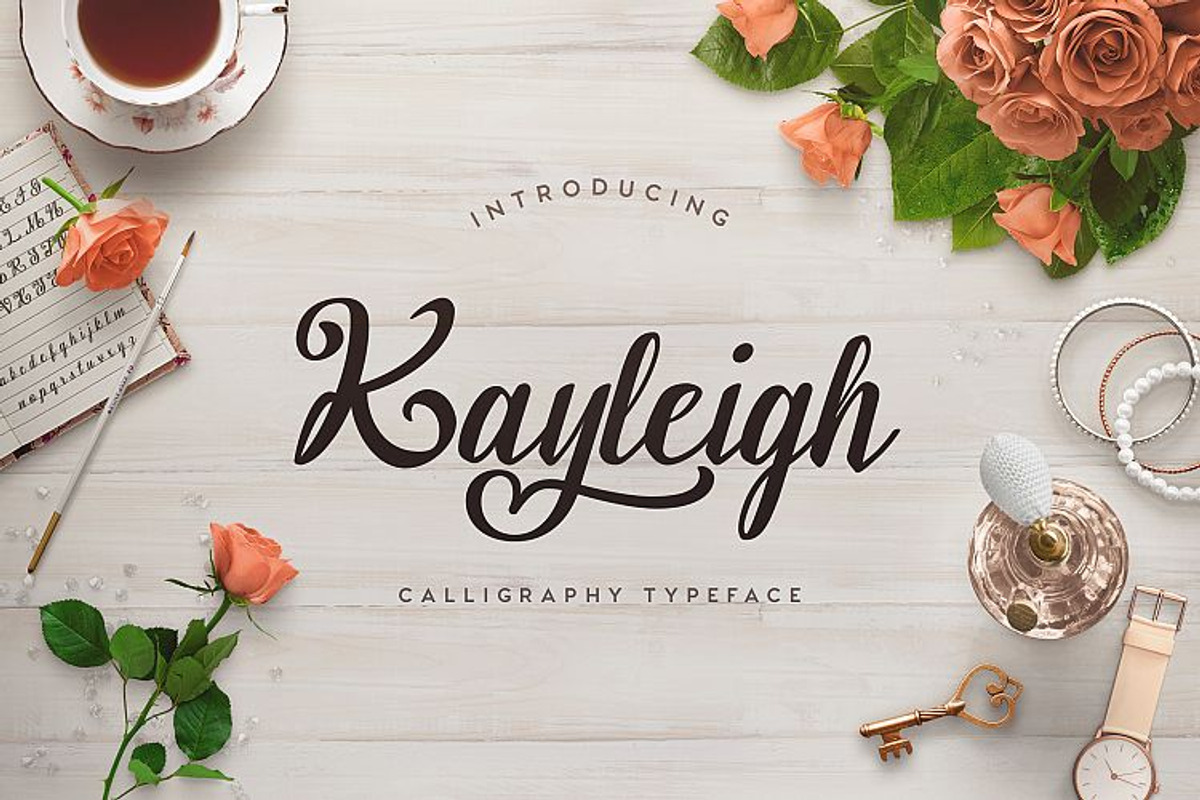
Kayleigh
Kayleigh by Font Bundles is a font selected for branding, posters, packaging, typography.
- Kayleigh comes with 217 glyphs including the adorable heart shaped extra and you do not need any special software to use this.
Why Kayleigh is worth a look
Kayleigh by Font Bundles fits naturally into Branding, posters, packaging, typography.